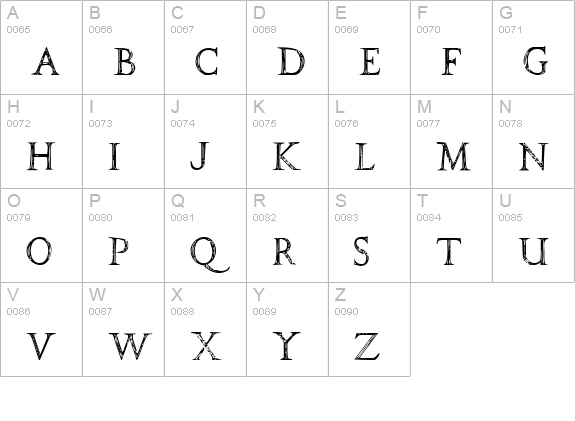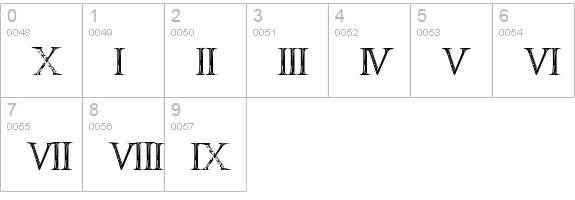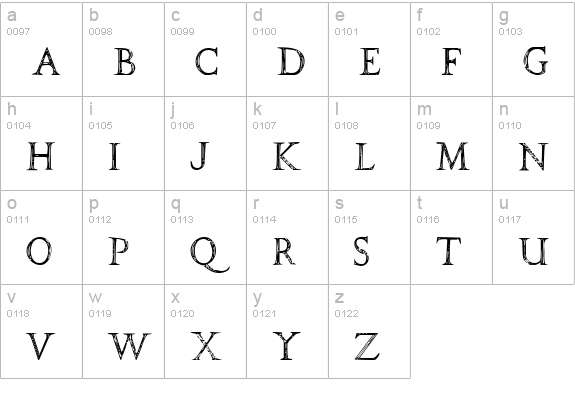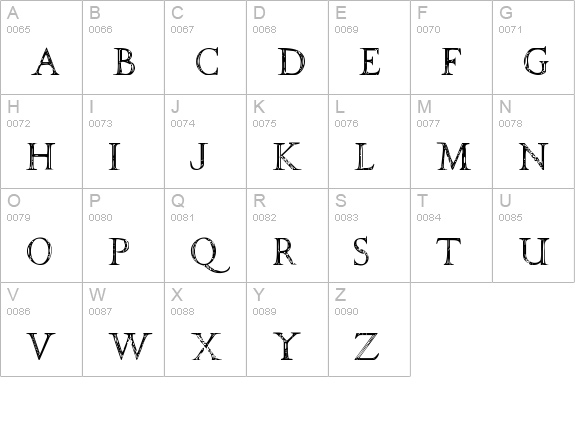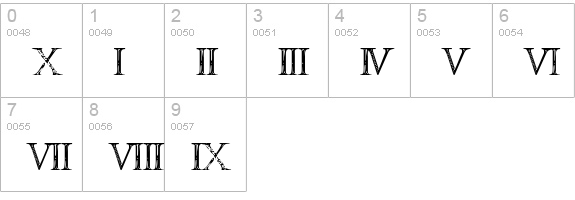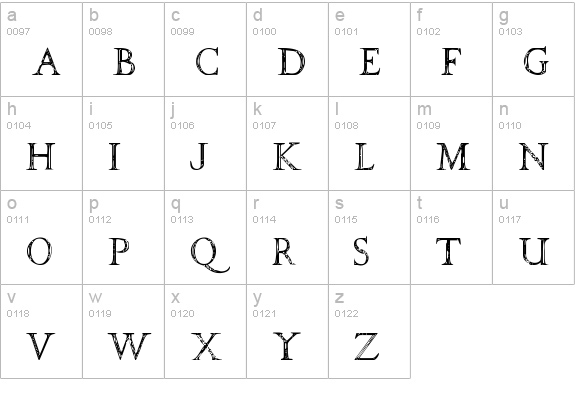
Experience the timeless beauty and elegance of the SPQR font, inspired by the rich history of ancient Rome. This exquisite typeface features intricate details and classic lines that evoke a sense of grandeur and sophistication. Each letter is meticulously crafted to showcase the perfect balance of strength and grace. What makes this font even more appealing is that it is completely free to use. Whether you are working on a project that requires a touch of historic charm or simply looking to add a touch of class to your designs, the SPQR font is the perfect choice. You can easily download this stunning font for free at FontsMarket.com. Don't miss the opportunity to enhance your designs with the beauty and elegance of the SPQR font.